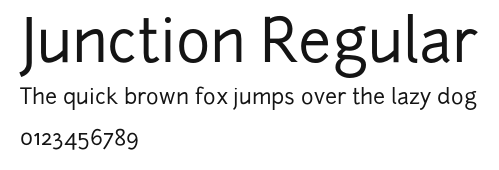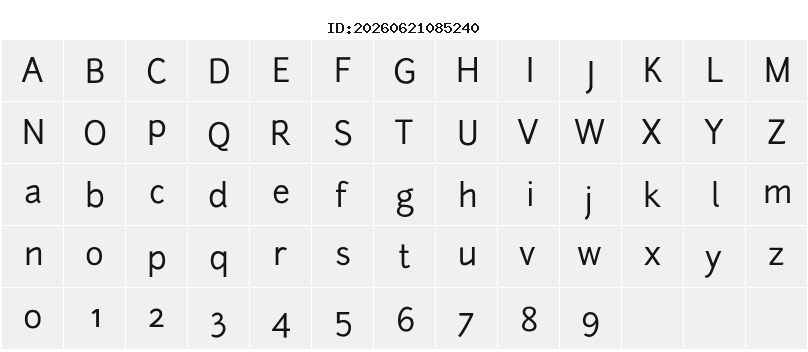
Junction Regular Preview
• Font Name: Junction Regular
• Designer: Caroline Hadilaksono
About Junction Regular.otf
Junction Regular.otf is a modern, elegant sans-serif font designed for ultimate readability and visual harmony. Perfect for branding, headlines, web design, and print materials.